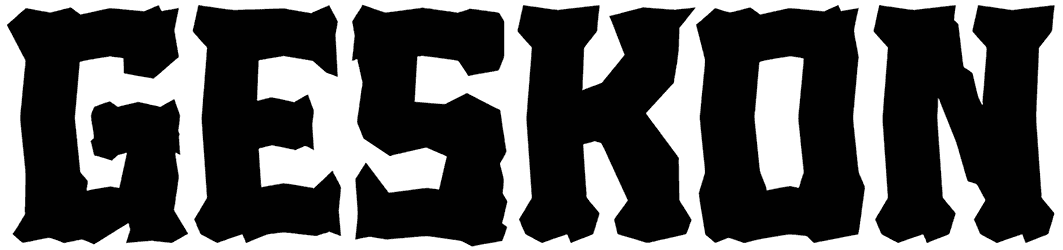
Geskon Font
Set Geskon on your Halloween flyer or any other designs you are working on, and create a cool vibe. Geskon is a horror font with an eerie and dark vibe that will put a bold outward on your words. This Halloween font is a unique illustration for many exciting designs, even without numeric and most of the punctuation marks.